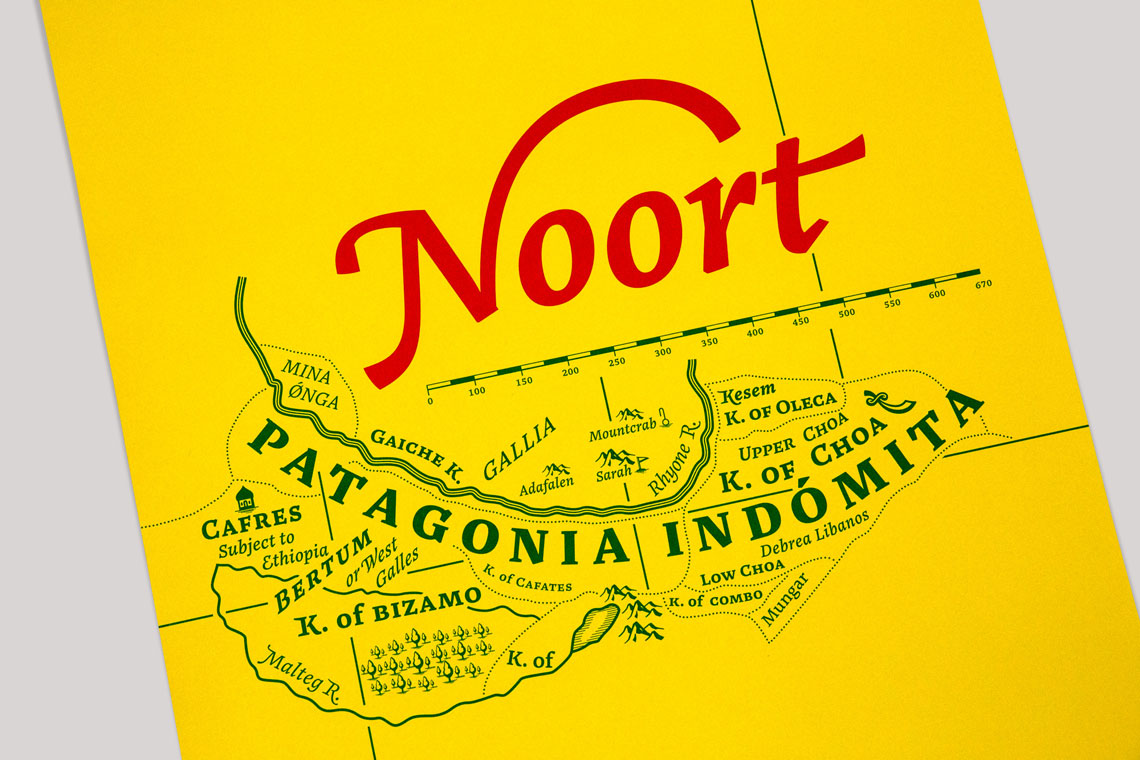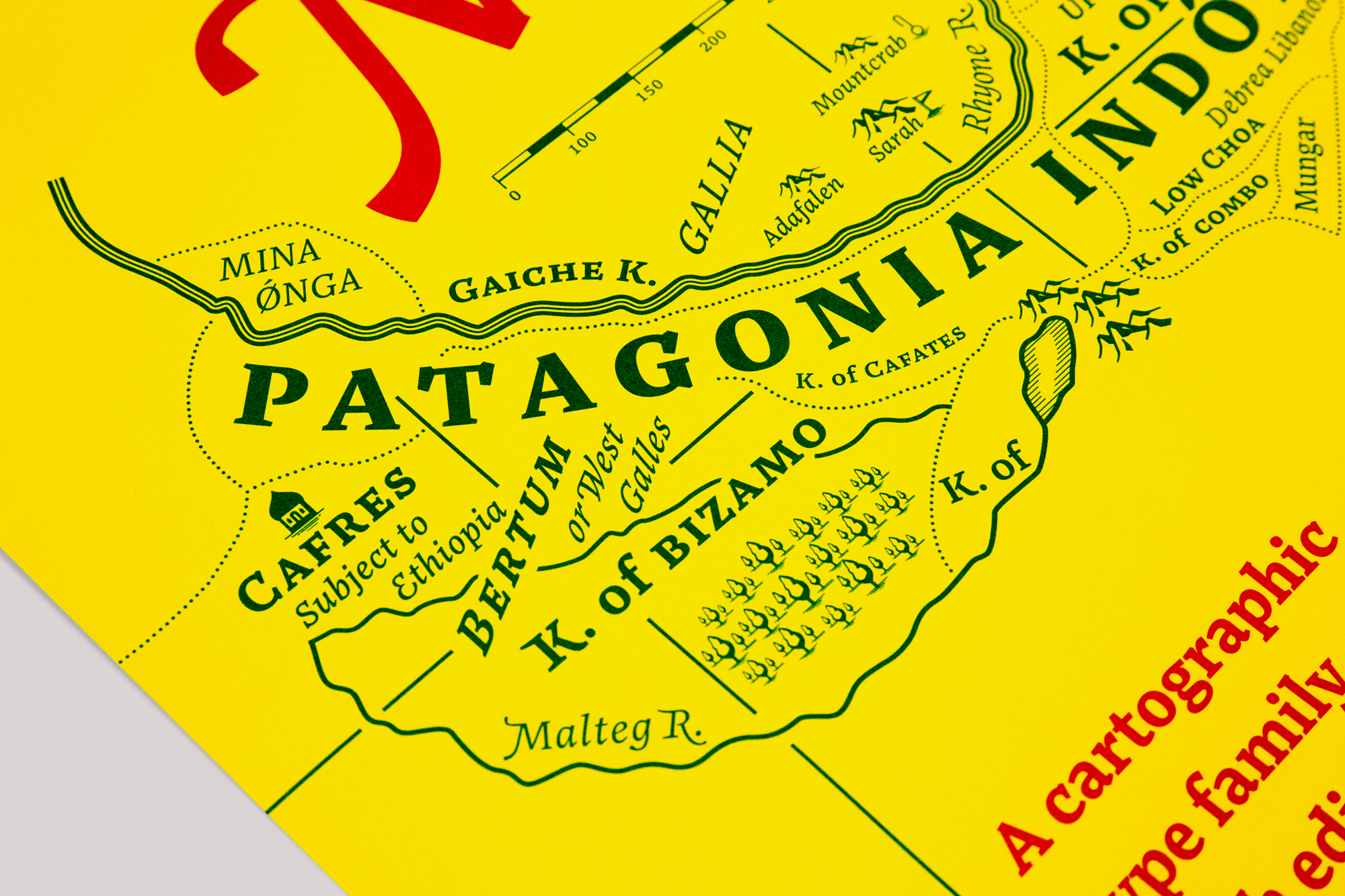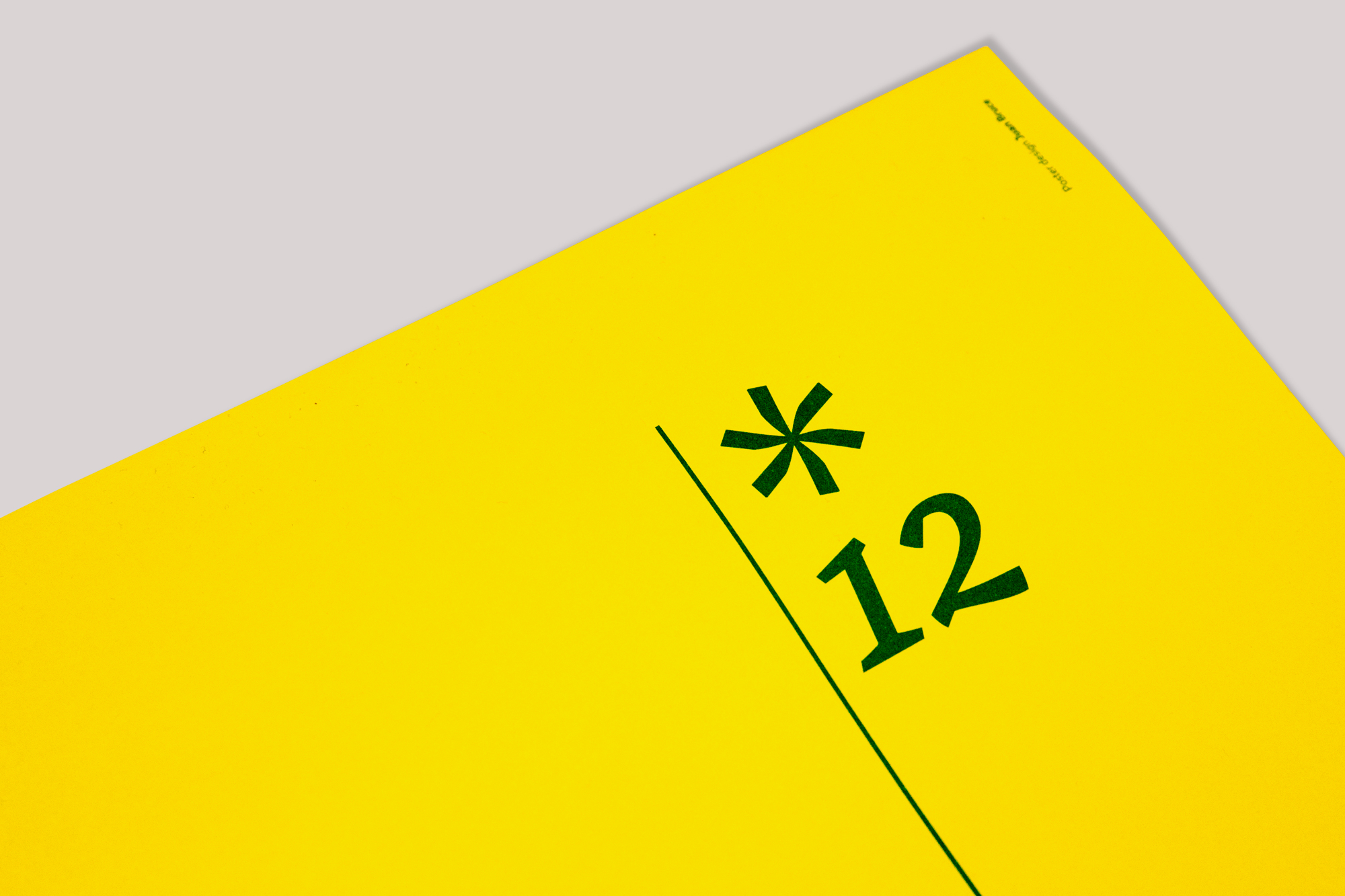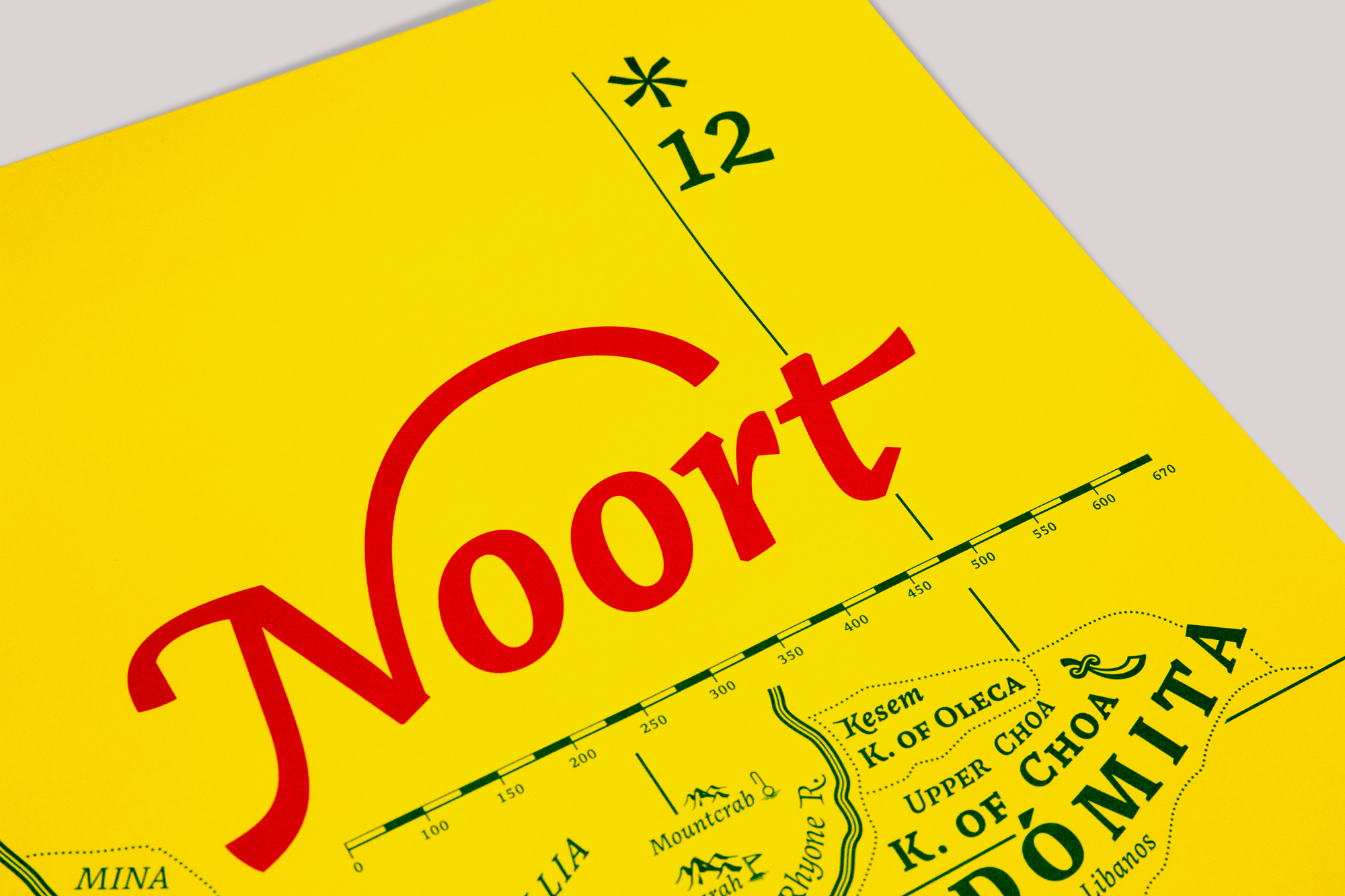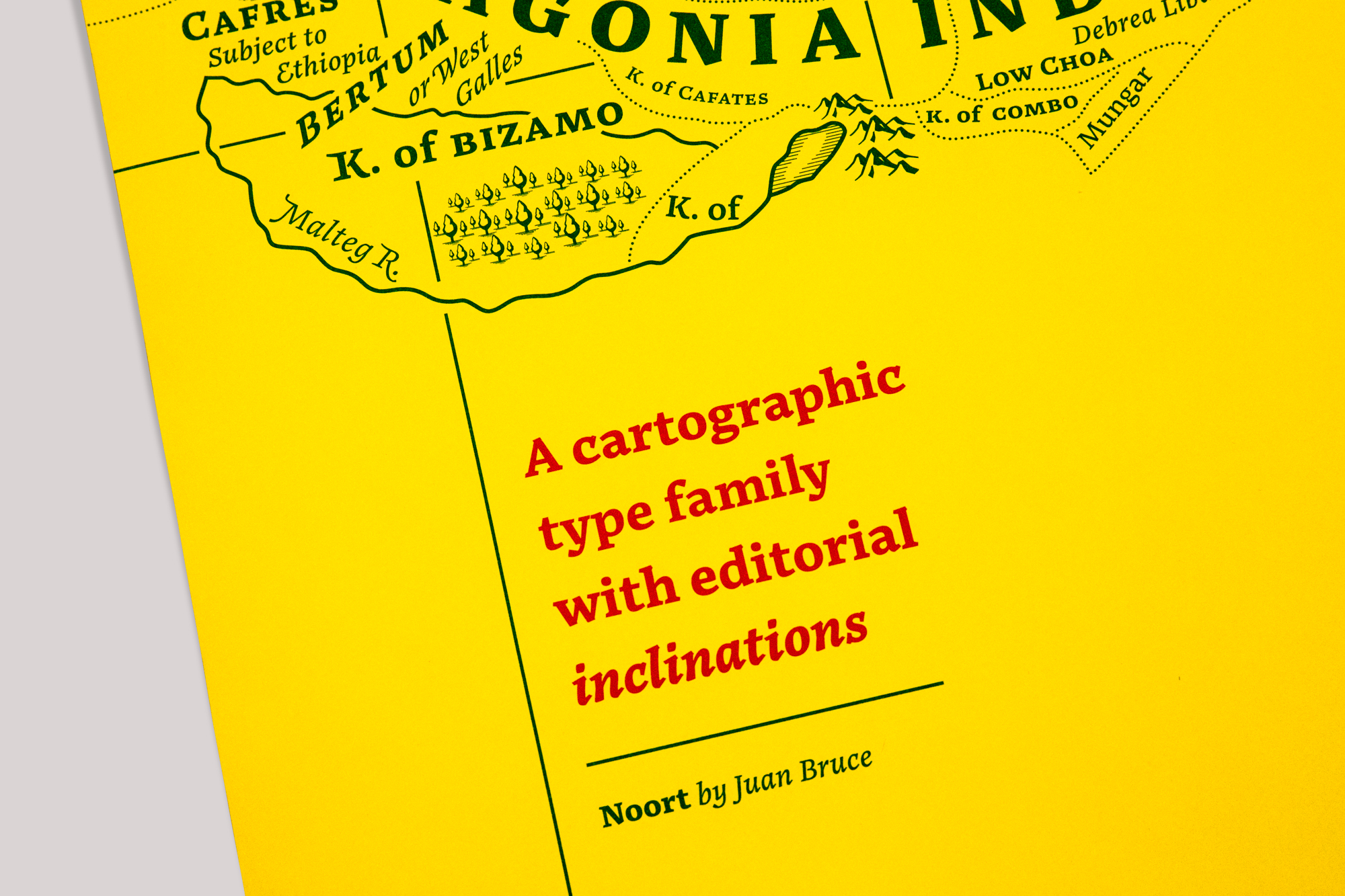
Noort poster
Talented Chilenean designer Juan Bruce in collaboration with TypeTogether designed this beautiful poster featuring his very own typeface Noort. The award-winning mature serif family is an information architect’s dream. The designer’s complex job of layering information and stylistic design choices can be balanced by Noort's easily-read nature and analogue details.
Noort poster, Juan Bruce